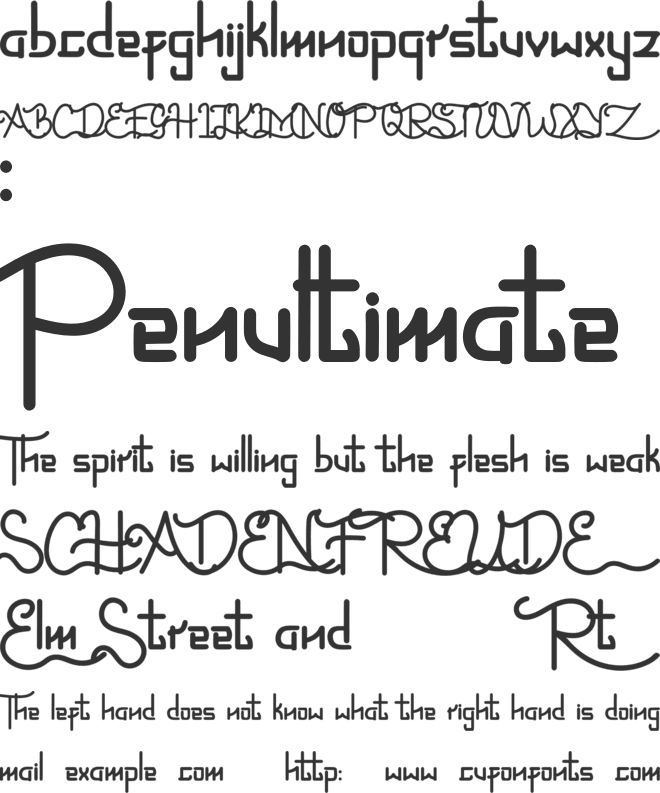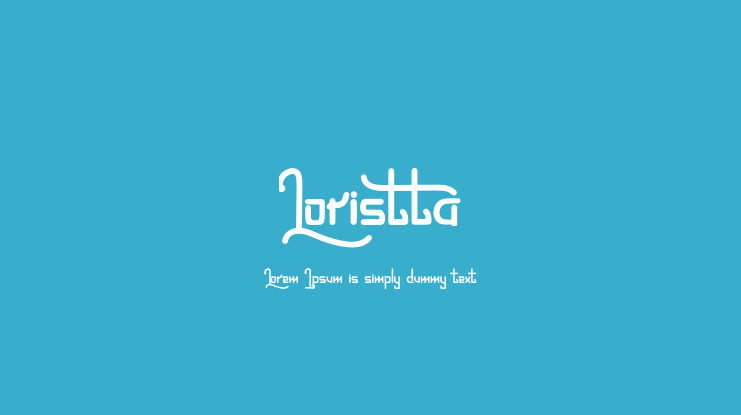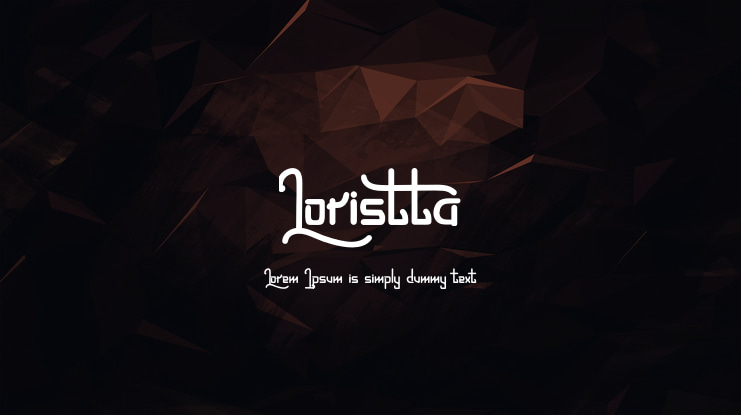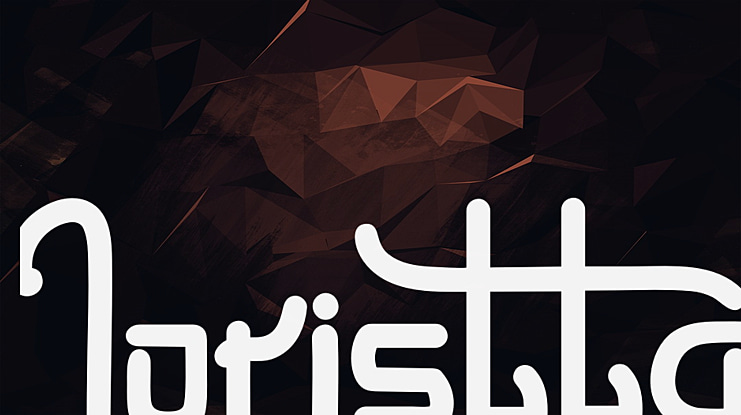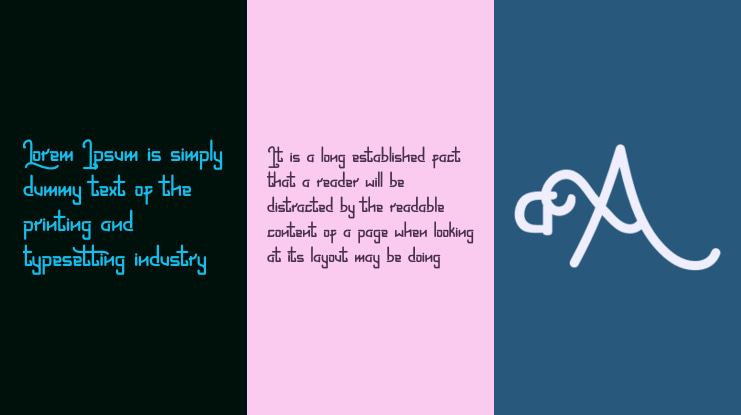
Loristta Font
Introducing Loristta is Vintage Monoline Font. This font is created with a new monoline style that always follows the growing trends. This Monoline type font has a strong character for each letter, so it is suitable for the needs of any type of work. so immediately have this font so that your product looks more elegant and cool. They work perfectly for you who need a typeface for Fashion, headline, logotype, apparel, Marchandise, branding, packaging, advertising, etc.